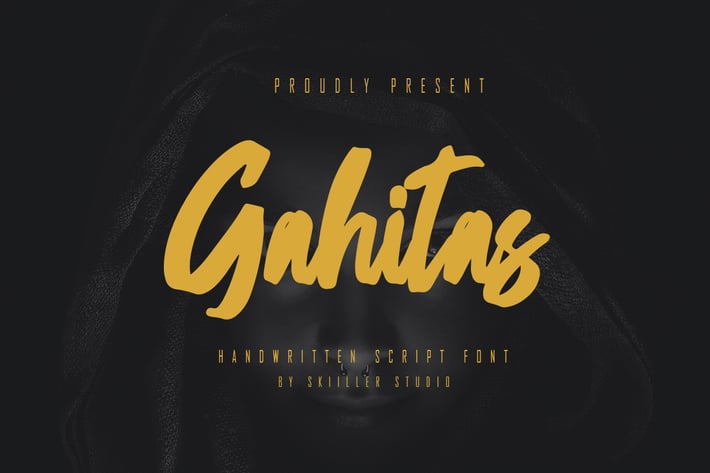
Gahitas - Handwritten Script Font
Gahitas is a natural handmade textured brush text font with an irregular base line. Suitable for use in title design. Such as clothing, covers, book titles, films, quotes, branding, logos, greeting cards, t-shirts, packaging designs, posters, and others.
+ Basic Latin Language Support (AÀÁÂÃÄÅCÇDÐEÈÉÊËIÌÍÎÏÑOØÒÓÔÕÖUÙÜÚÛWYÝŸÆß )